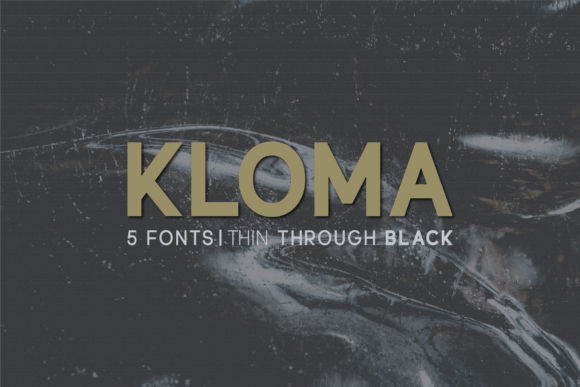
Get ready to be mesmerized by Kloma, the font family that exudes perfection, innovation, and flexibility. This remarkable creation by Huntype is not just another font; it's an artistic masterpiece that will transform your designs into captivating visual symphonies.
With Kloma, you'll embark on a creative journey, exploring the boundaries of visual expression. Its five distinct weights—THIN, LIGHT, REGULAR, BOLD, and BLACK—are like a palette of artistic possibilities, allowing you to paint your words with a variety of shades and textures.
Immerse yourself in the world of Kloma and discover the extraordinary. Its delicate THIN weight whispers sophistication, adding a touch of grace to your designs. The LIGHT weight dances with elegance, bringing a sense of airiness and refinement. For a balanced and timeless look, the REGULAR weight stands tall, offering a foundation of strength and versatility.
When you crave impact and drama, the BOLD weight takes center stage, commanding attention with its powerful presence. And for those moments when you want to make an unforgettable statement, the BLACK weight emerges, a bold and striking force that leaves a lasting impression.
Kloma's versatility knows no bounds. Its clean lines and modern aesthetics make it the perfect choice for magazines, capturing the essence of every story with a flair of sophistication. Its adaptability extends to branding and logos, where it breathes life into your visual identity, creating a lasting connection with your audience.
Don't settle for ordinary fonts. Let Kloma ignite your creativity, allowing you to craft designs that captivate and inspire. Its seamless blend of elegance and modernity will elevate your work to new heights, leaving an indelible mark on the world.
Embrace the magic of Kloma today and unlock a world of endless creative possibilities. Transform your designs into works of art, captivate your audience, and make a statement that resonates with brilliance.